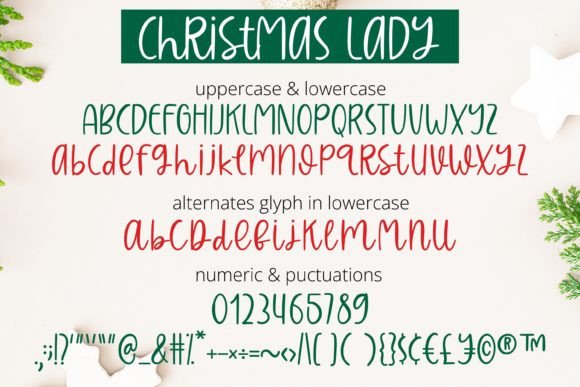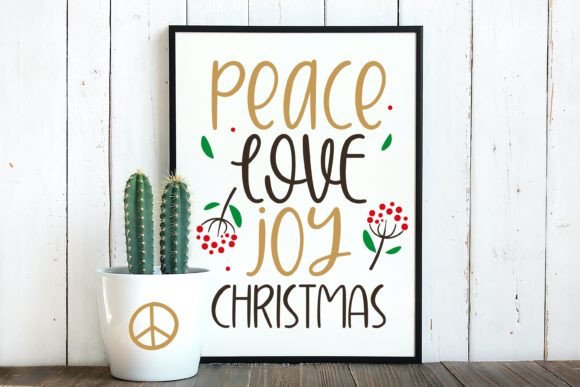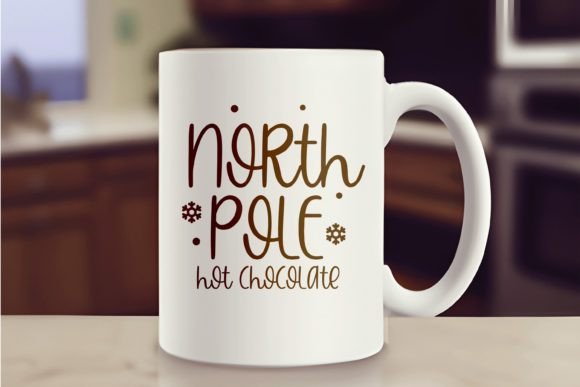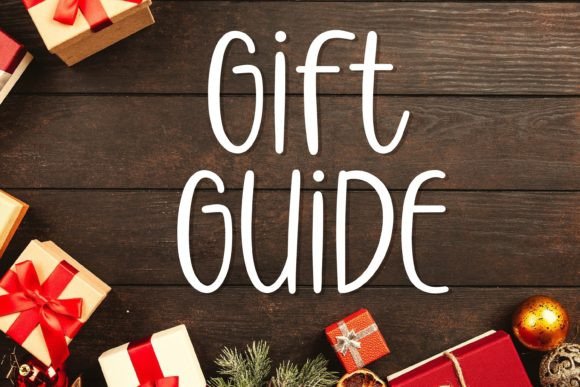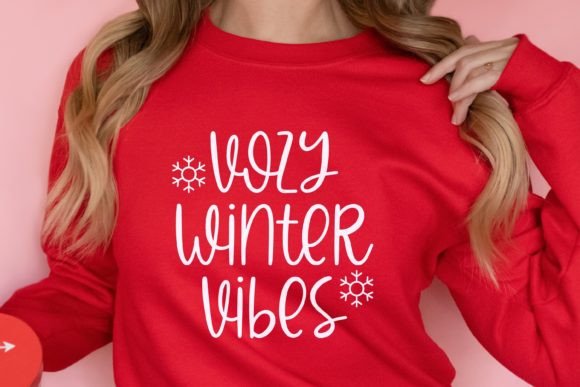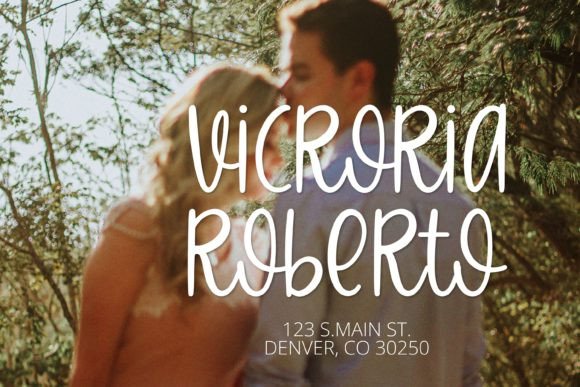
Introducing Christmas Lady Font: The Perfect Addition to Your Design Collection
Are you a designer, crafter, or educator looking for a unique and charming font to add a personal touch to your projects? Look no further than Christmas Lady Font, a cool, friendly, and informal handwritten font that’s perfect for chalkboard quotes, teaching materials, and more. In this article, we’ll dive into the features and benefits of Christmas Lady Font, and explore how it can elevate your designs and make them stand out.
What is Christmas Lady Font?
Christmas Lady Font is a beautifully crafted handwritten font that’s designed to mimic the look and feel of chalkboard writing. Its authentic, informal style makes it perfect for adding a personal and realistic touch to your designs. Whether you’re creating chalkboard quotes, teaching materials, or social media graphics, Christmas Lady Font is the perfect choice.
Key Features of Christmas Lady Font
- Handwritten style: Christmas Lady Font features a unique, handwritten style that’s both friendly and informal.
- Chalkboard-inspired: The font’s design is inspired by traditional chalkboard writing, giving it an authentic look and feel.
- Perfect for teaching materials: Christmas Lady Font is ideal for teachers and educators looking to create engaging and interactive teaching materials.
- Great for chalkboard quotes: The font’s chalkboard-inspired design makes it perfect for creating eye-catching chalkboard quotes.
- Easy to read: Despite its informal style, Christmas Lady Font is easy to read and understand, making it perfect for a wide range of applications.
Benefits of Using Christmas Lady Font
So why choose Christmas Lady Font for your next project? Here are just a few benefits of using this amazing font:
- Adds a personal touch: Christmas Lady Font’s handwritten style adds a personal and realistic touch to your designs, making them stand out from the crowd.
- Increases engagement: The font’s friendly and informal style can help increase engagement and interaction with your audience.
- Perfect for educational materials: Christmas Lady Font is ideal for teachers and educators looking to create engaging and interactive teaching materials.
- Versatile: The font can be used for a wide range of applications, from chalkboard quotes to social media graphics.
How to Use Christmas Lady Font
Christmas Lady Font is a unique and charming font that’s perfect for designers, crafters, and educators looking to add a personal touch to their projects. Its handwritten style, chalkboard-inspired design, and authentic look and feel make it perfect for chalkboard quotes, teaching materials, and more. With its ease of use and versatility, Christmas Lady Font is a must-have addition to your design collection.